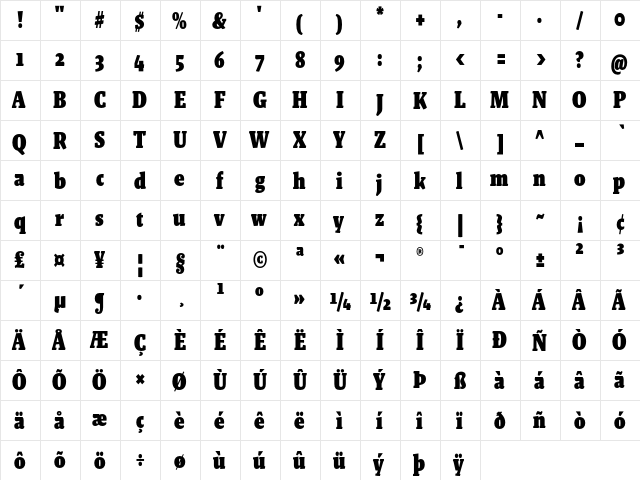
Malaga Narrow OT Black
| Foundry | Emigre Inc. |
| Designer | Xavier Dupre |
Design Context for Malaga Narrow OT Typeface
Malaga Narrow OT is a composed and adaptable typeface that performs quietly and consistently across a wide range of design contexts. The condensed width makes it efficient for tight spaces without sacrificing legibility.